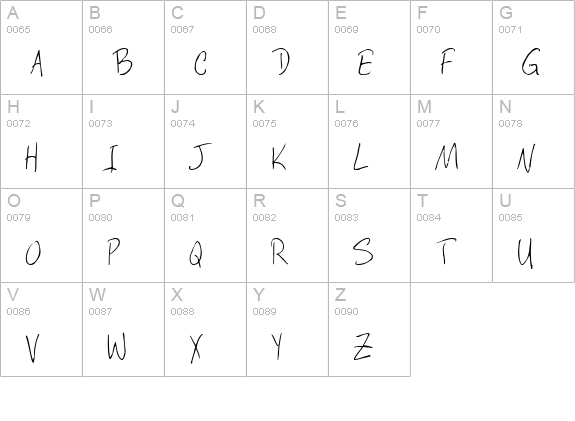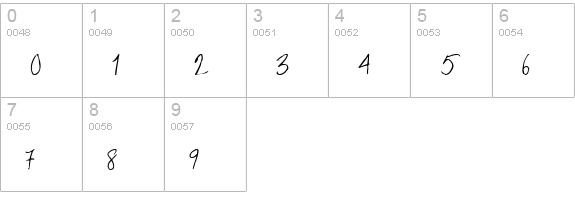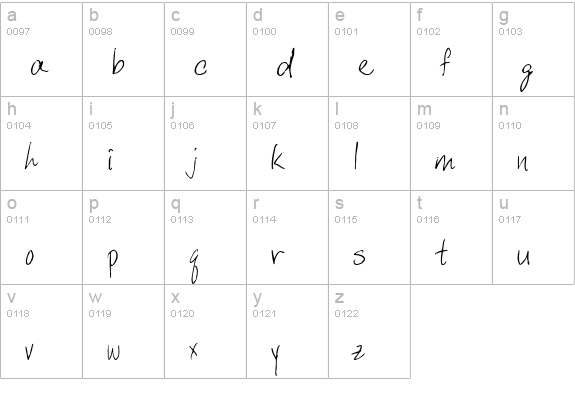
DCWri Regular Font Details
DCWri Regular is the standard, neutral variant in the DCWri typeface family \xE2\x80\x94 well suited to general body text, paragraphs, and standard typographic work.
DCWri Regular font is a versatile and elegant typeface that is perfect for various design projects. With its clean lines and modern appeal, this font exudes professionalism and readability. The sleek and stylish characters make it ideal for both digital and print designs. This font is freely available to download at FontsMarket.com, making it easily accessible for all designers and creatives. Whether you're working on a branding project, website design, or any other creative endeavor, DCWri Regular font is sure to elevate your work with its timeless aesthetic. Add a touch of sophistication to your designs with DCWri Regular font, and let your creativity shine with this versatile and modern typeface. Download it for free today and bring your projects to life with this stunning font.